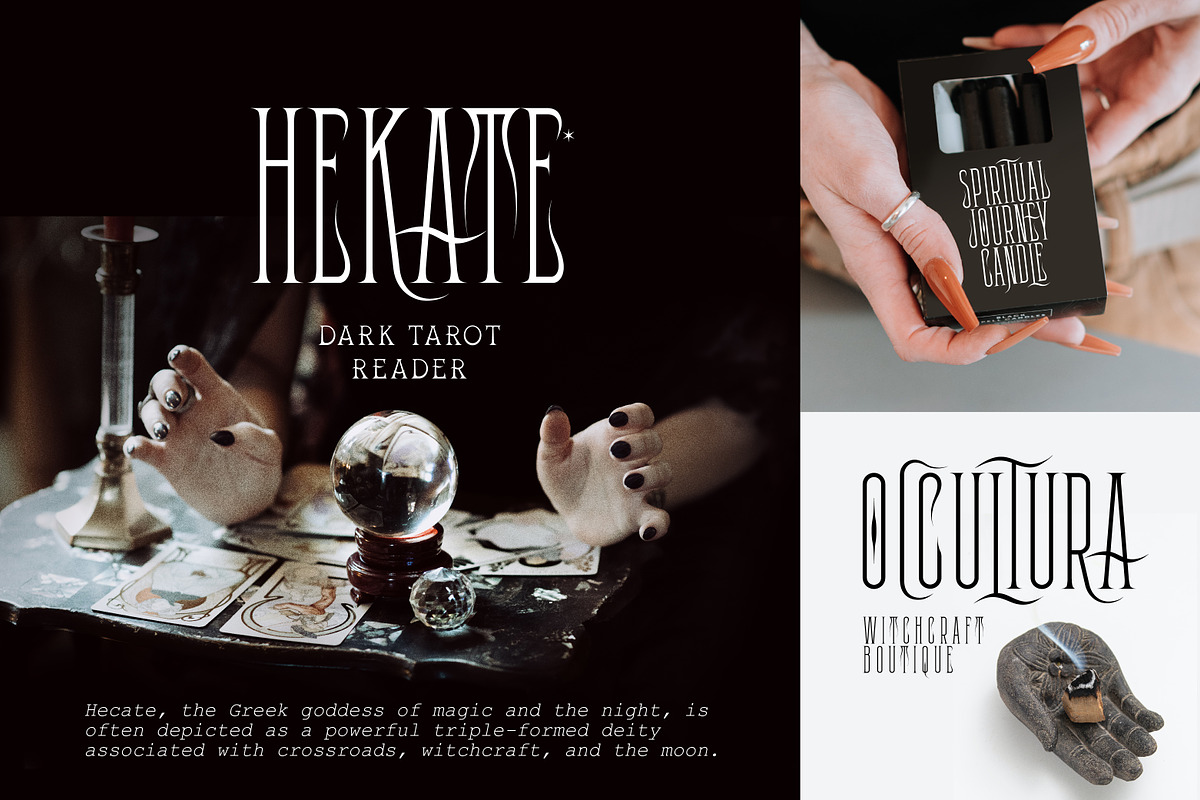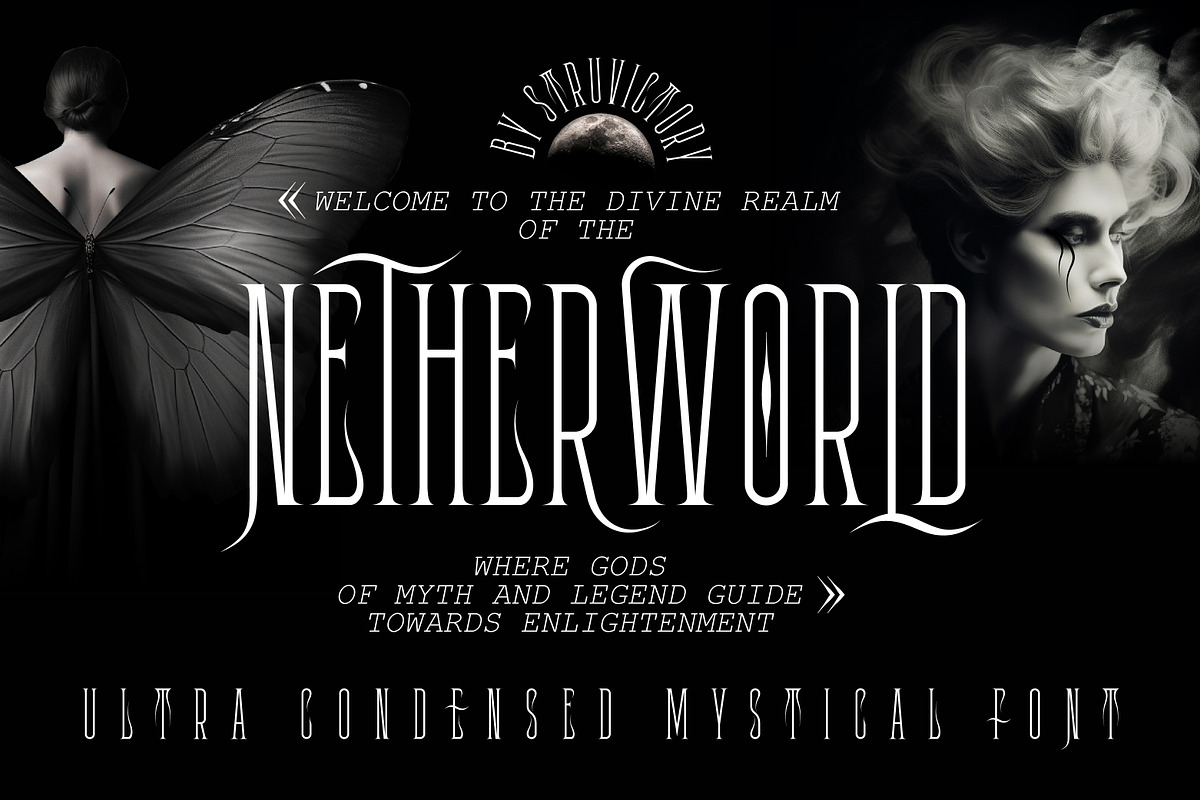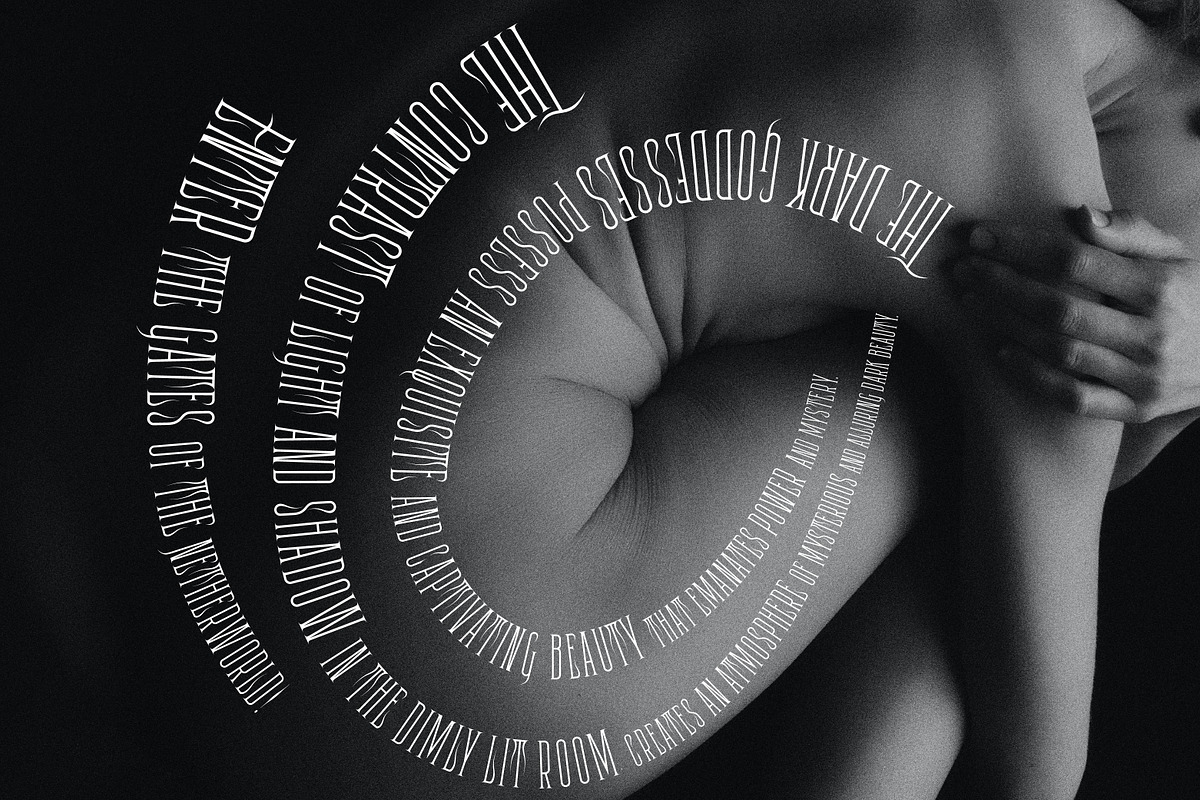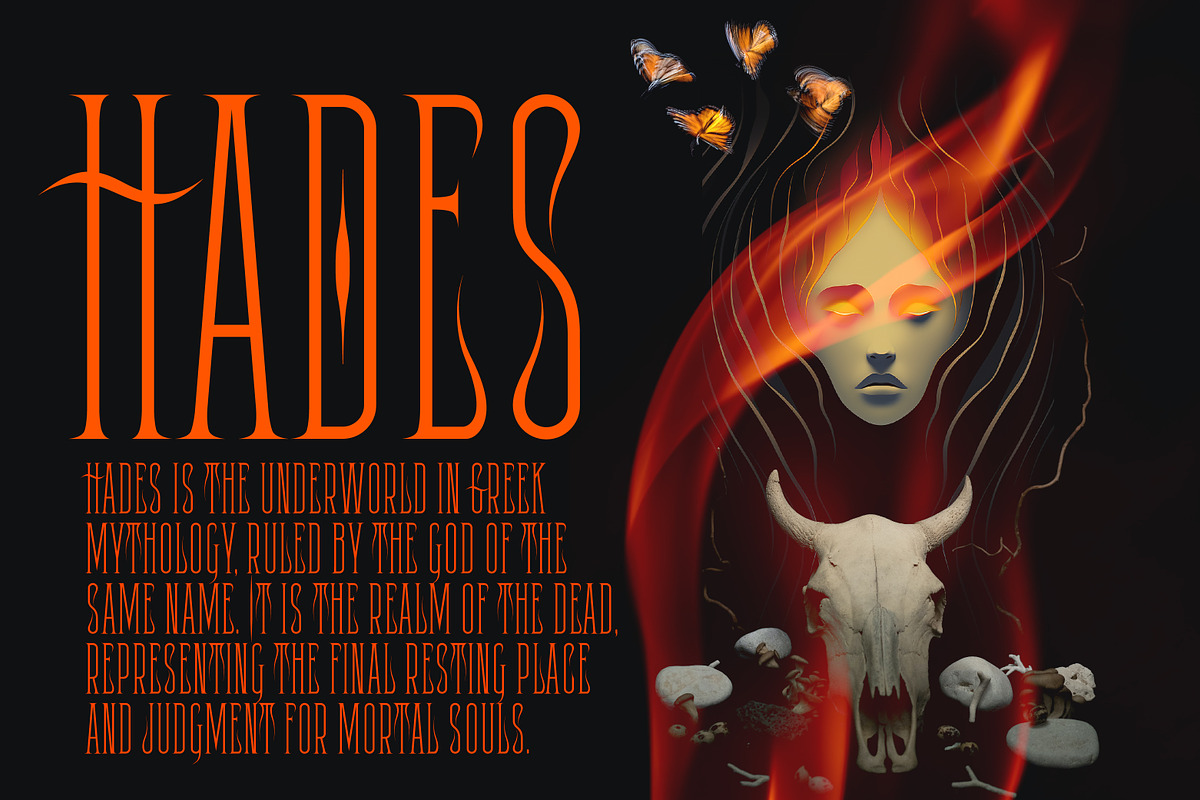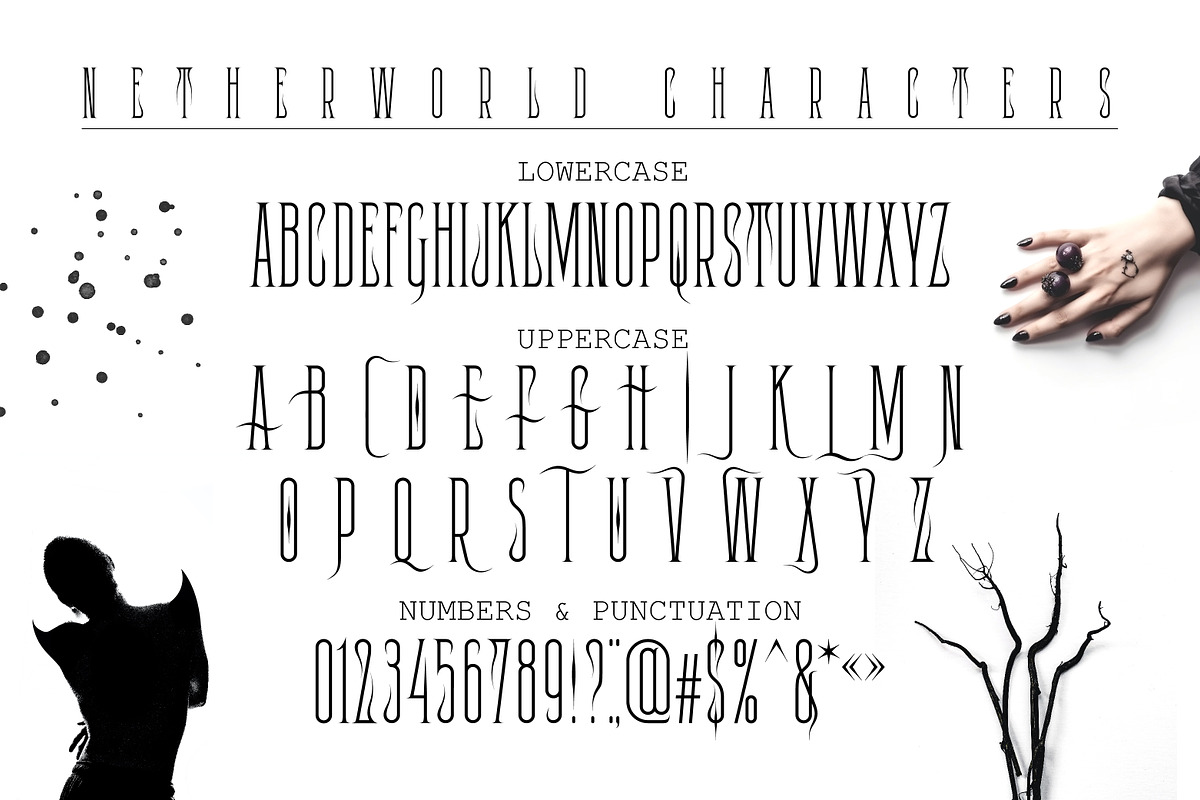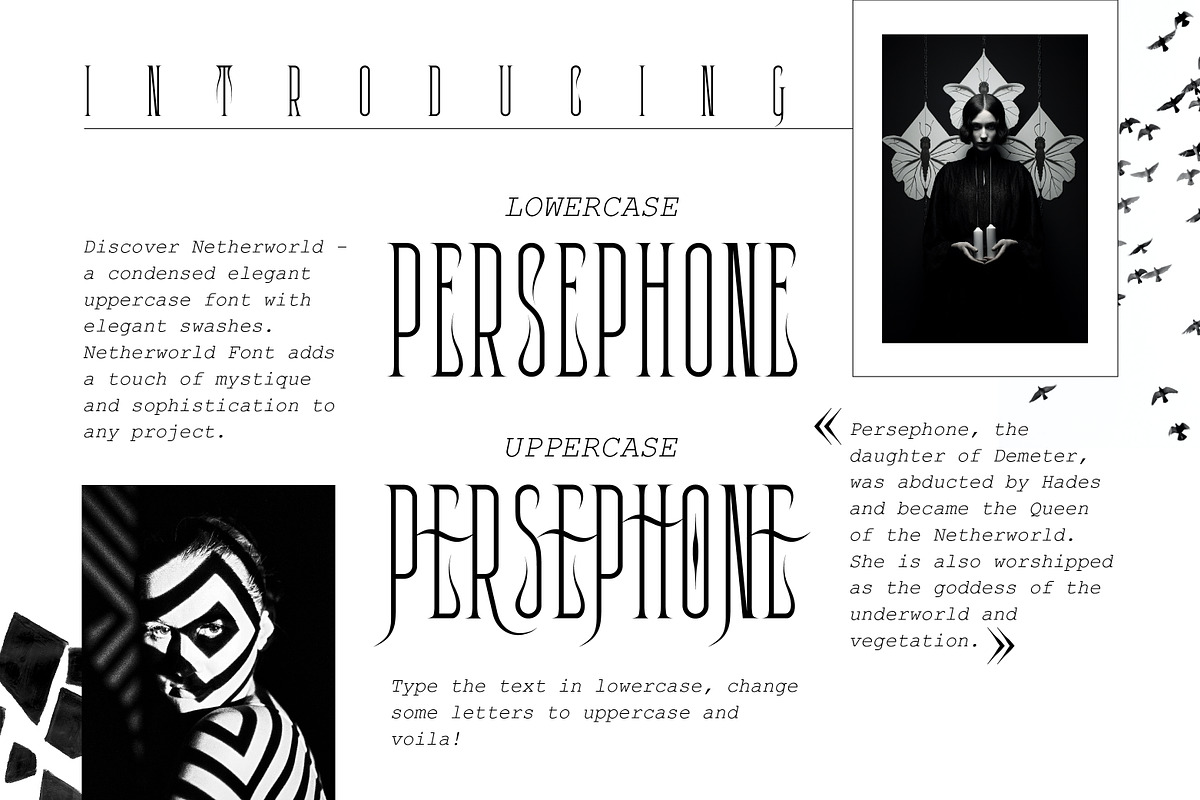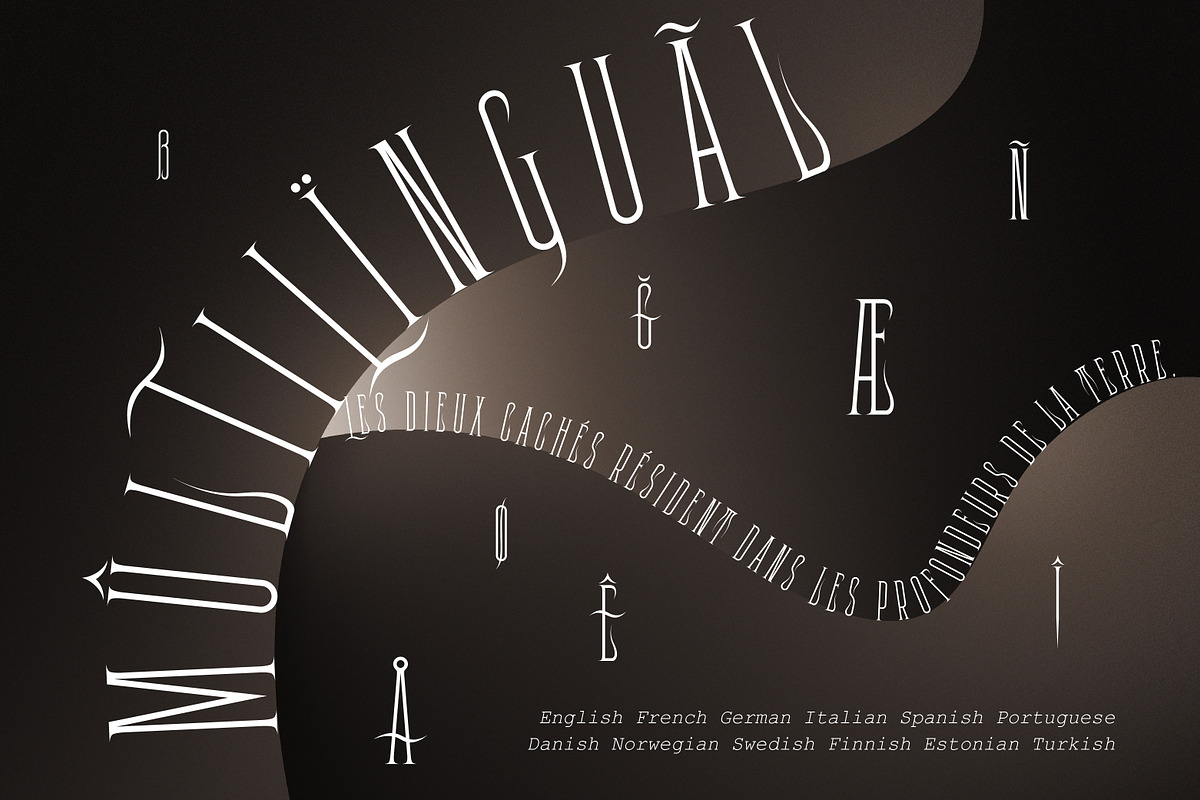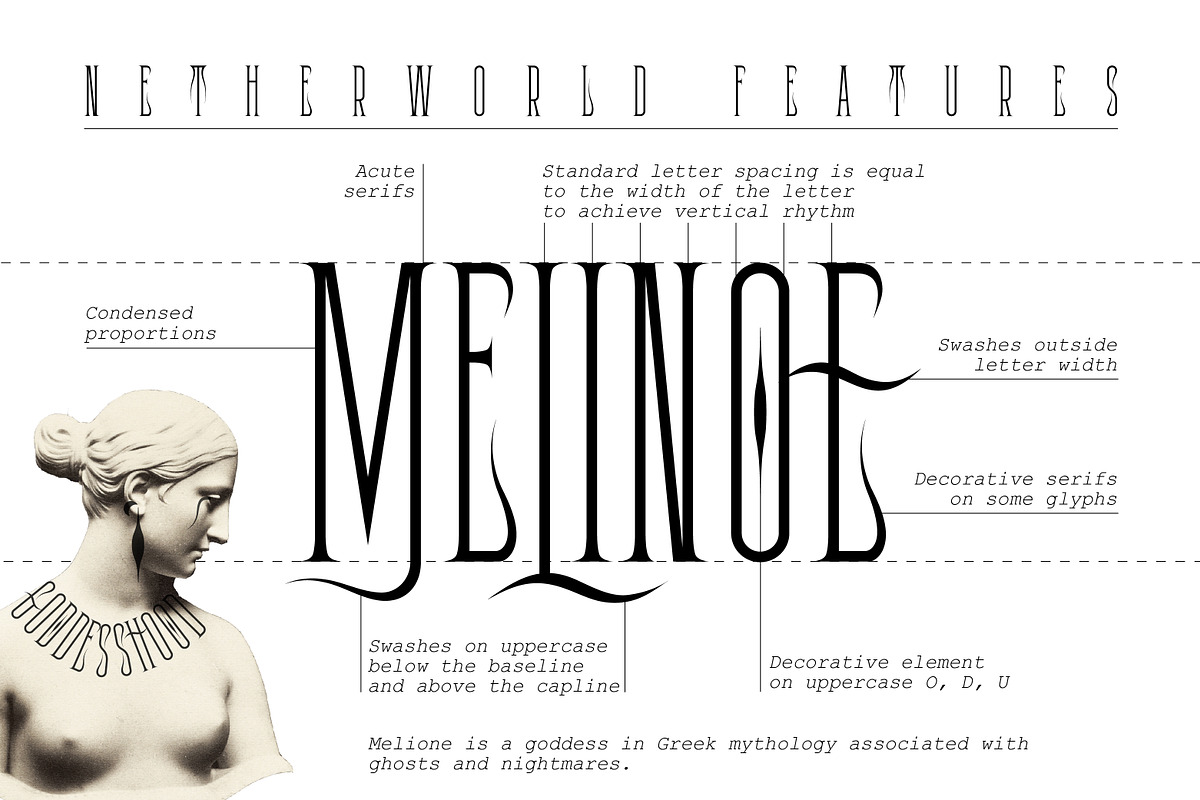
Netherworld Condensed Mystical Font
Discover Netherworld, a new condensed font with mystical serifs and swashes, perfect for all your dark-themed designs. With its elegant and enigmatic curves, this font brings an air of mystery and intrigue to your projects. Whether you're designing candle labels, album covers, or delving into the realms of the occult, this font will captivate your audience and transport them to a world of enchantment. Its unique style and intricate detailing make it ideal for witchcraft stores, tarot card designs, and other mystical endeavors.
The font includes the most popular latin-based languages, you can check the symbol you need by typing a couple of words in the font preview box.